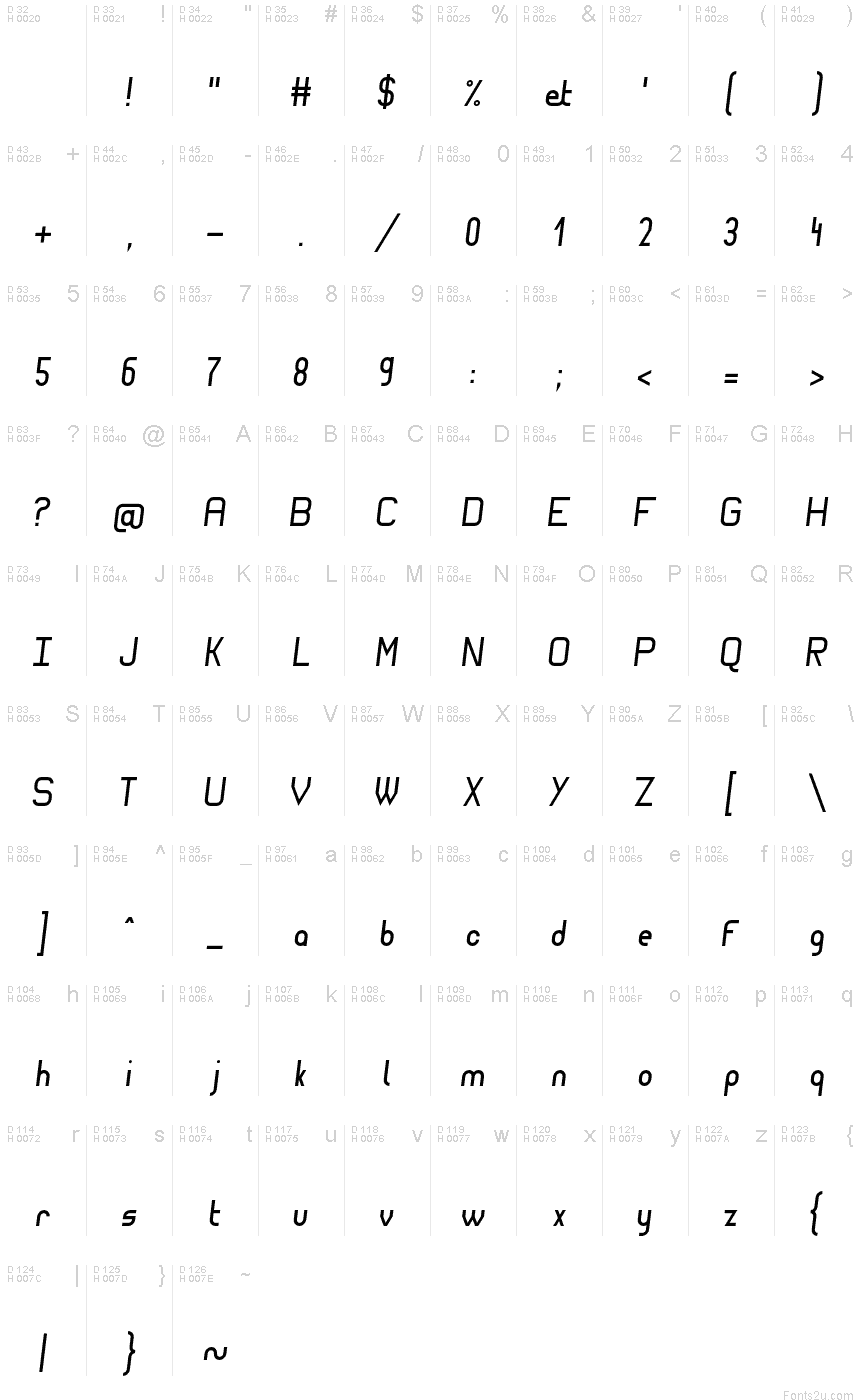
Wagon Sans Two Italic, copyrighted by Wolf Lambert in 2013, is a free condensed techno display font with a steep forward slant. Its tall, tightly drawn letters have rounded corners, flat cuts, and open curves that keep the streamlined industrial profile from feeling dense.
It can turn a title into a sleek machine-age badge. Automotive branding, racing posters, electronic album covers, and game interfaces all suit its sense of speed, with the narrow silhouettes echoing instrument panels and vehicle graphics.